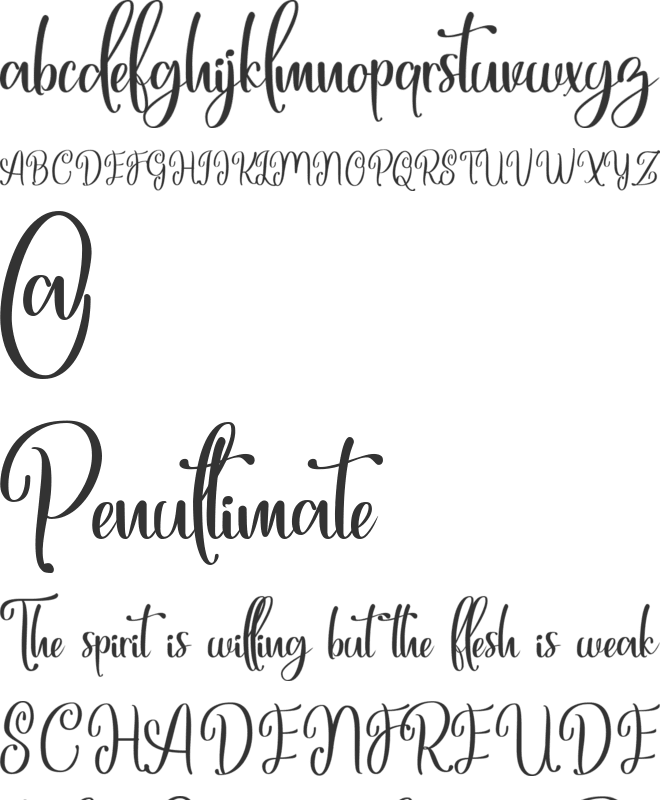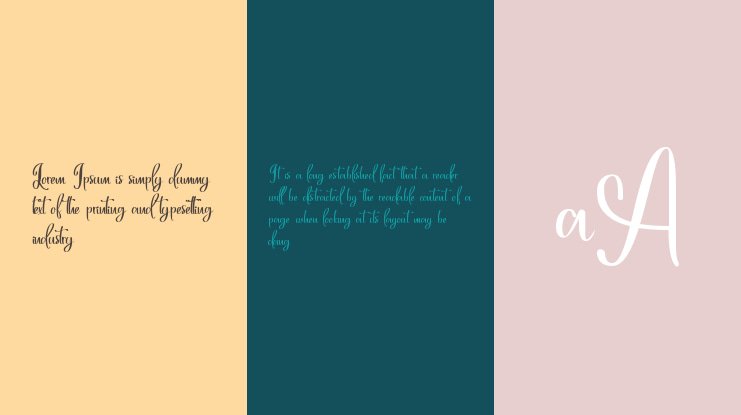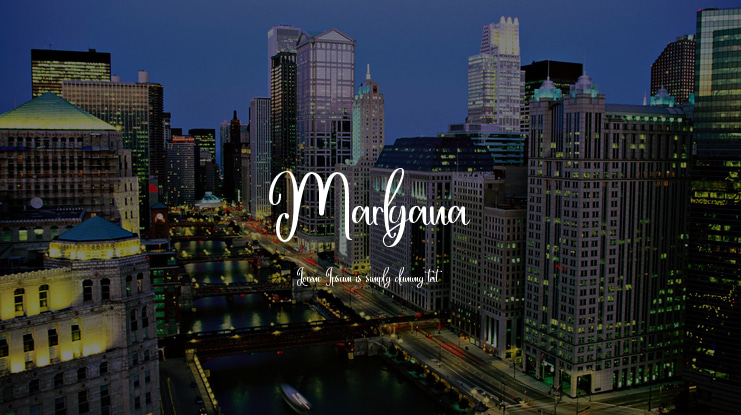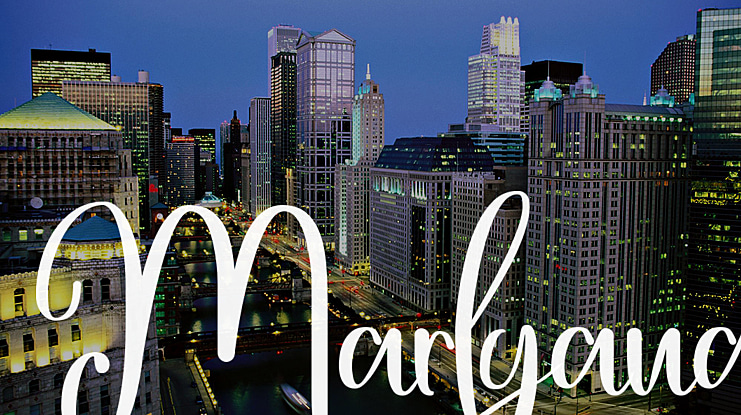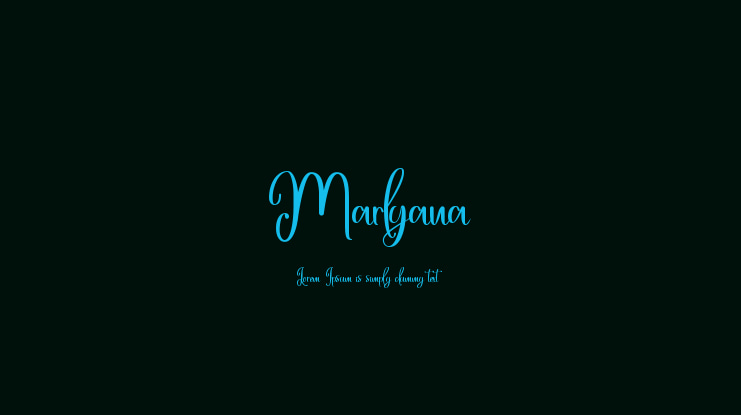
Marlyana Font Family
''Happy Marlyana Font Trio" a new fresh handmade calligraphy font come with 3 style variation that really sweet together. Very suitable for greeting cards, branding materials, business cards, quotes, posters, and more!